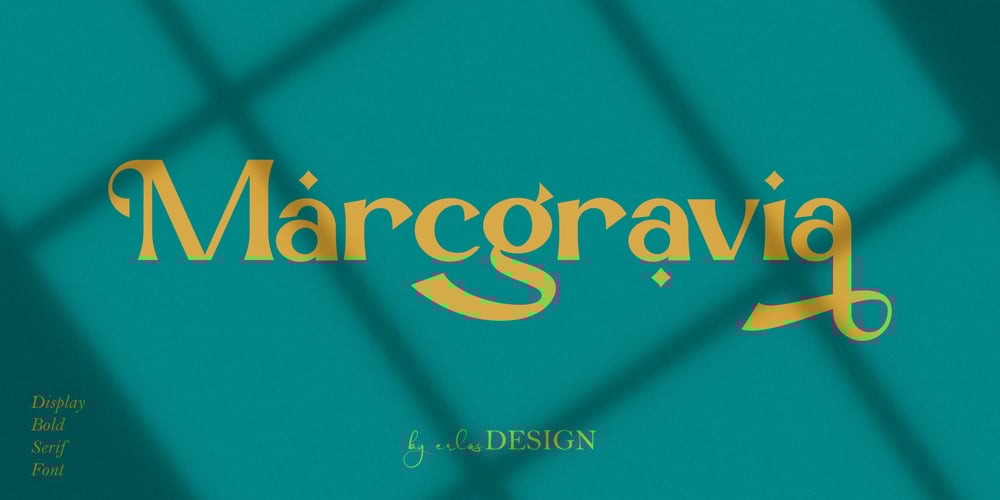
Marcgravia Font Family was designed by Erlangga Suherman and published by ErlosDesign. Marcgravia contains 1 styles and family package options. Say hello to our new display bold serif font “Marcgravia”.Marcgravia is an elegant and luxurious serif font. Trendy and stylish, this font will elevate each of your creations. Marcgravia is PUA encoded which means you can access all the glyphs and swashes with ease.